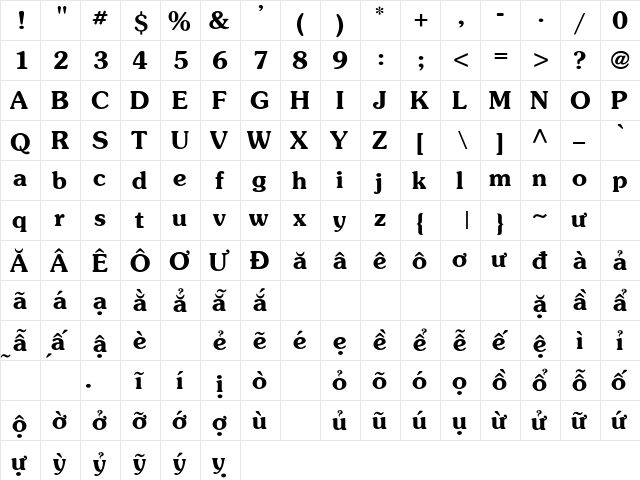
.VnSouthern Bold
Design Context for .VnSouthern Typeface
.VnSouthern takes a measured approach to typography — its balanced proportions and neutral character make it a reliable workhorse for both digital and print work. The heavy weight commands attention and anchors typographic hierarchies.